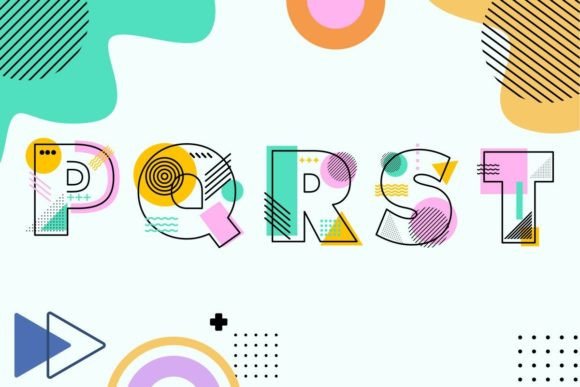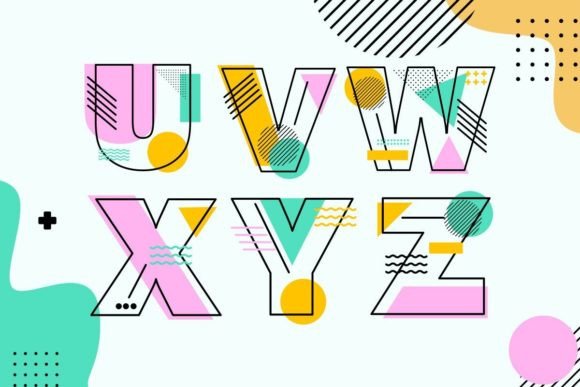
Introducing Geomile Memphis Font: A Bold and Whimsical Design Delight
Are you ready to elevate your designs with a modern and playful twist? Look no further than the Geomile Memphis Font, a splendid bold geometrical color font that embodies the essence of contemporary Memphis design style. This stunning font is perfect for designers and crafters seeking to add a touch of fun and creativity to their projects.
What is Geomile Memphis Font?
Geomile Memphis is a carefully crafted font that boasts a unique blend of modern and whimsical elements. Its bold geometrical design makes it an excellent choice for a wide range of applications, from digital graphics to print materials. With its vibrant and eye-catching style, this font is sure to immerse your designs into a fun world of creativity and imagination.
Key Features of Geomile Memphis Font
- Contemporary Memphis Design Style: Geomile Memphis Font is inspired by the iconic Memphis design movement, which is characterized by bold colors, geometric shapes, and a playful approach to design.
- Bold Geometrical Design: This font features a bold and geometrical design that adds a touch of modernity to any project.
- Color Font (Opentype-SVG): Geomile Memphis Font is a color font in Opentype-SVG format, which allows for seamless integration with compatible software.
Why Choose Geomile Memphis Font?
So, why should you choose Geomile Memphis Font for your next design project? Here are just a few reasons:
- Add a Touch of Whimsy: This font’s playful and modern design is sure to add a touch of whimsy to any project.
- Stand Out from the Crowd: With its bold geometrical design and vibrant colors, Geomile Memphis Font is sure to make your designs stand out from the crowd.
- Versatility: This font is perfect for a wide range of applications, from digital graphics to print materials, and can be used for both personal and commercial projects.
Tips for Using Geomile Memphis Font
To get the most out of Geomile Memphis Font, here are a few tips to keep in mind:
- Experiment with Colors: This font is designed to be used with a variety of colors, so don’t be afraid to experiment and find the perfect combination for your design.
- Mix and Match: Try pairing Geomile Memphis Font with other fonts and design elements to create a unique and eye-catching look.
- Have Fun: Most importantly, have fun with it! Geomile Memphis Font is designed to add a touch of playfulness to your designs, so don’t be afraid to get creative and try new things.
In conclusion, Geomile Memphis Font is a fantastic addition to any designer’s toolkit. With its bold geometrical design, modern yet whimsical style, and compatibility with popular design software, this font is sure to elevate your designs to the next level. So why wait? Download Geomile Memphis Font today and start creating fun and engaging designs that are sure to impress!